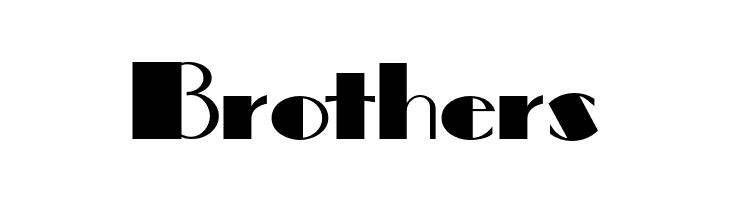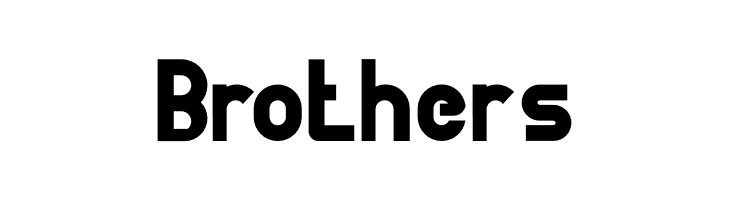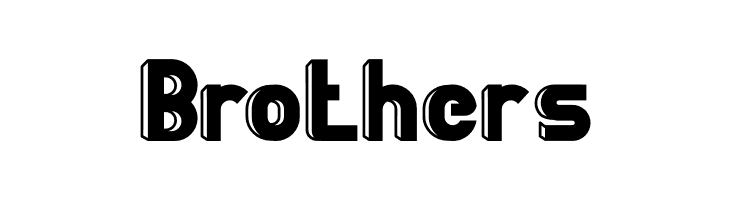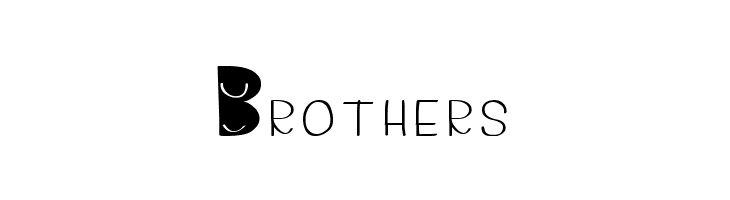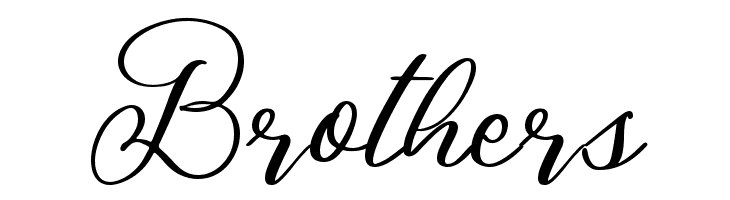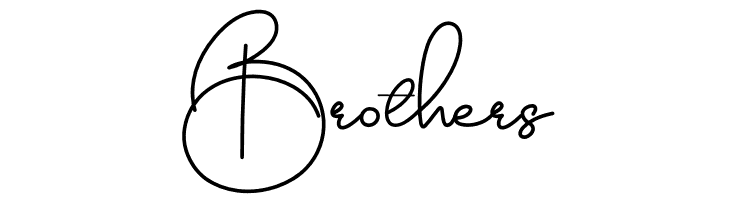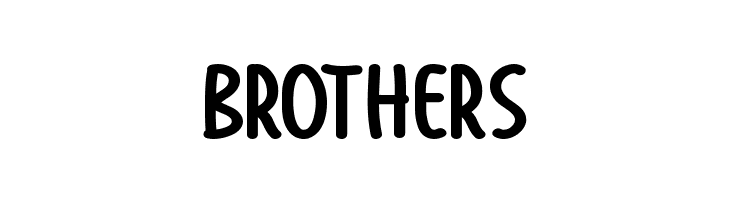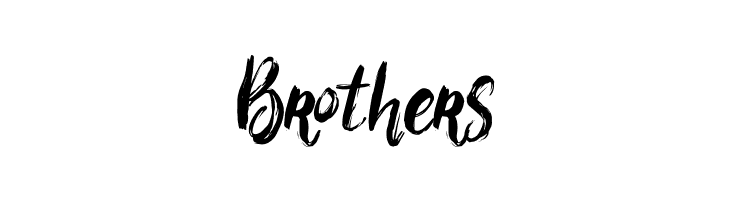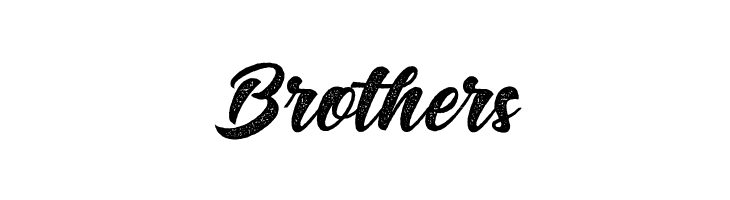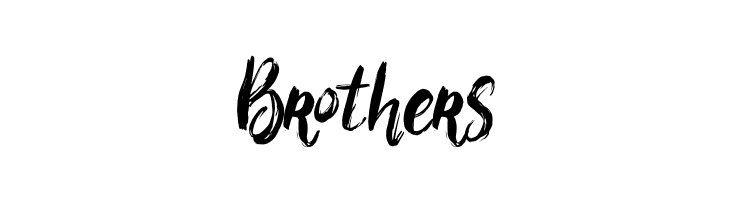
A bold, playful font with whimsical, decorative elements and a circus-like theme.
A bold, playful display font with chunky, cartoon-like shapes.
A dynamic handwritten font with fluid strokes and expressive character.
A playful, bold handwritten font with rounded, consistent strokes.
A casual, handwritten italic font with a smooth, flowing style.
A bold, geometric font with a modern, stencil-like design.
A playful and whimsical font with irregular, dynamic letterforms.
Bold, italicized sans-serif font with a dynamic style.
A playful, handwritten font with rounded, consistent strokes.
A bold, modern font with high contrast and geometric shapes.
A bold, expressive brush script font with dynamic, hand-painted strokes.
A bold, expressive brush script font with dynamic strokes and artistic flair.
A playful, handwritten font with looping, interconnected strokes.
An elegant script font with flowing, cursive style and intricate loops.
A bold, dynamic script font with interconnected characters and sweeping curves.
A bold, textured script font with a modern, hand-drawn feel.
A bold, playful font with a 3D shadow effect and cartoonish style.
A bold, cartoonish font with a playful, three-dimensional bubble style.
A bold, geometric font with a modern and clean design.
A bold, 3D font with geometric shapes and a modern, dynamic style.
A playful, balloon-inspired font with a three-dimensional, puffy appearance.
A bold, modern font with geometric, rounded characters.
A bold, 3D font with a modern, geometric style and shadow effect.
A playful, balloon-inspired font with a bold, three-dimensional look.
A bold, rounded font with a modern and playful style.
A bold, rounded font with smooth curves and a playful style.
A bold, energetic script font with a modern flair.
A bold, playful font with rounded edges and a bubbly appearance.
A bold, playful font with rounded edges and a bubbly style.
A playful, hand-drawn font with rounded, informal characters.
A bold, angular font with a strong geometric style.
A bold, high-contrast serif font with a decorative boxed style.
A bold, cursive font with a playful and energetic style.
A decorative font with stylized big cat illustrations for each character.